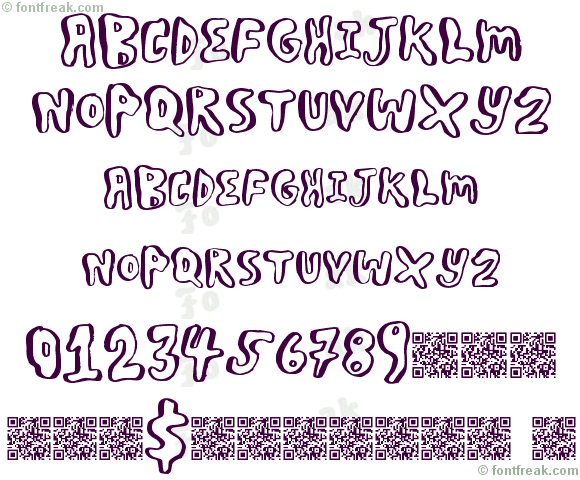
BoulderScare
BoulderScare, crafted by Xerographer Fonts in 2013, is a unique display font that captures a playful and whimsical essence. This font stands out with its bold, hand-drawn style, characterized by irregular outlines and a charmingly imperfect look. The strokes vary in weight, creating a lively contrast that enhances its expressive nature. The generous spacing between letters contributes to its legibility, making it suitable for a range of applications.
BoulderScare is particularly effective for projects that require a touch of creativity and fun. It shines in contexts such as children’s book covers, where its quirky aesthetic can draw in young readers. Additionally, this font is perfect for Halloween-themed events, as its playful yet slightly eerie design can set the mood for spooky celebrations. It also works well for personalized greeting cards, where the informal style adds a unique touch to heartfelt messages. Restaurant menus that aim for a casual, inviting vibe can benefit from BoulderScare’s friendly appearance, making it an excellent choice for eateries with a laid-back atmosphere.
The target audience for this font includes graphic designers seeking to infuse personality into their projects, small business owners looking for eye-catching branding solutions, and content creators who want to engage their audience with distinctive visuals.
What sets BoulderScare apart is its ability to blend fun and creativity without compromising on readability. Its handcrafted appearance offers a sense of authenticity, making it ideal for those wanting to convey a personal touch in their designs. Whether you’re looking to make a bold statement or simply want to add a playful flair, BoulderScare font free download is an excellent choice for any creative endeavor.